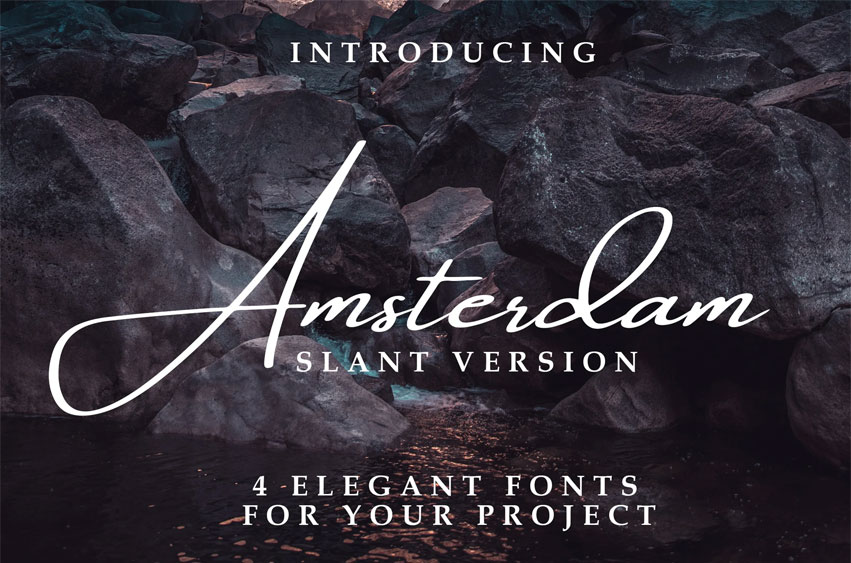
Amsterdam 2.0 Slant Font
Amsterdam 2.0 Slant Font is a simple font, comes with alternate font and some ligatures. We keep this font looks elegant, readable, stylish, and catchy.
You can use this font for watermark on photography, signature or signature logo design, quotes, album cover, business card, and many other design project.
• Amsterdam One Slant
• Amsterdam Two Slant
• Amsterdam Three Slant
• Amsterdam Four Slant
The variations will make you smile and happy. Just pick the variation you like best. NO DOUBT !
Each font has :
• Stylistic alternate
• Lowercase Initial Form (titl) and final form (swsh)